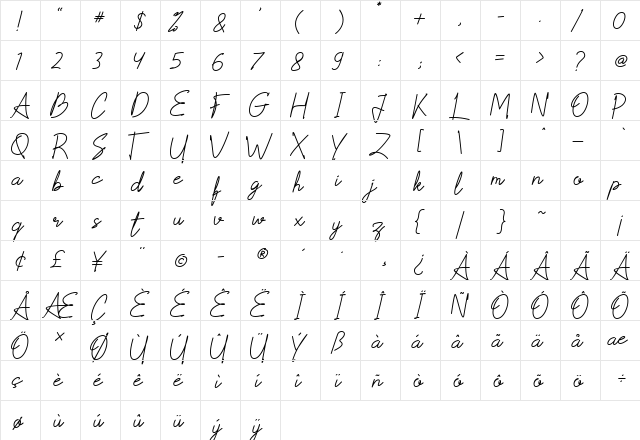
Scoutline Regular
Design Context for Scoutline Typeface
Scoutline is built around its visual character rather than neutral utility — its distinctive forms are designed to make an impression at display sizes.
Font Pairing: Pair with a clean neutral sans-serif for body copy to let Scoutline's character lead without overwhelming the composition.
Pro Tip: Treat Scoutline as the centrepiece of your typographic hierarchy. One strong heading set in a decorative face can carry an entire layout.